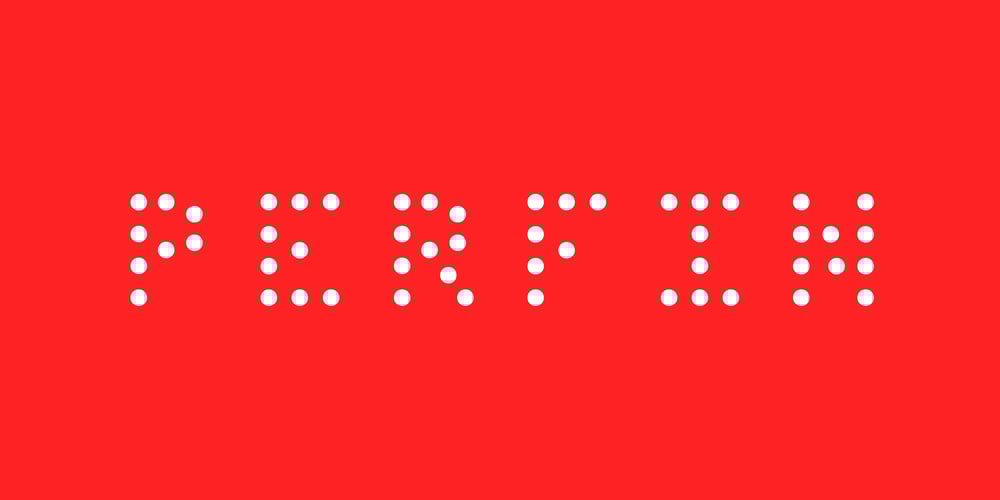
Perfin
Perfin font
Perfin Font Family was designed by Alison Haigh and published by Colophon Foundry. Perfin contains 1 styles and family package options. Perfins, a contraction of ‘Perforated Initials’ or ‘Perforated Insignia’, first appeared on postage stamps in Britain in 1868. As unused postage stamps could be redeemed for cash, companies used perforated text and symbols on stamps to signify ownership and protect them from theft. The use of perforations meant there was no need to overprint onto the stamp image. Perfin, designed by Alison Haigh, was created based on the letterforms seen on a plethora of referenced stamps. It attempts to place some form of overall grid and structure into this nuanced and haptic system to construct a graphic typeface that still embodies the spirit and overall aesthetic of the original references.